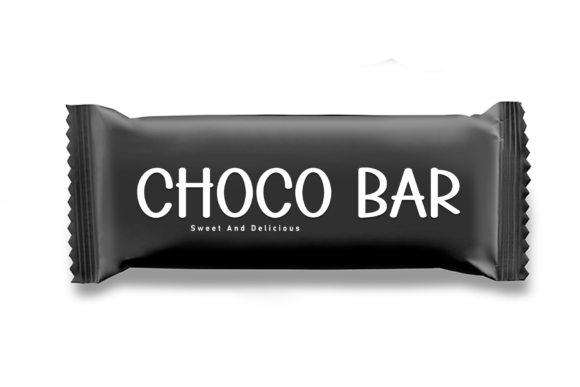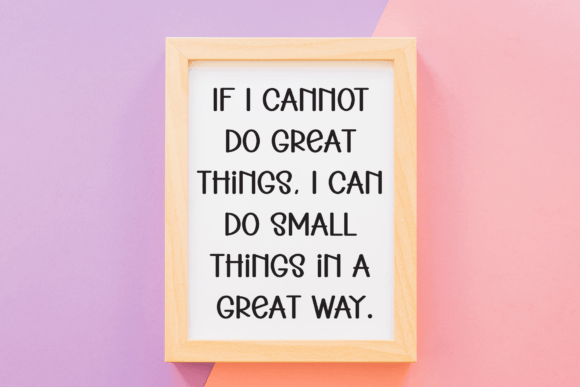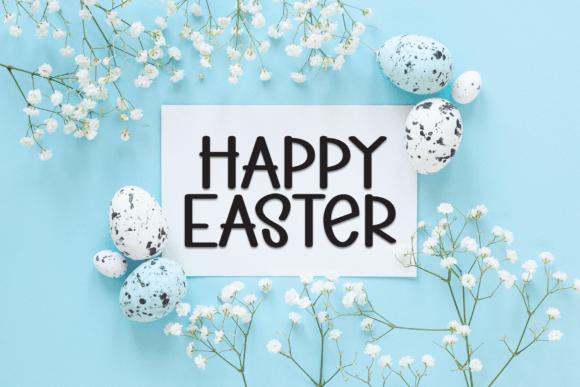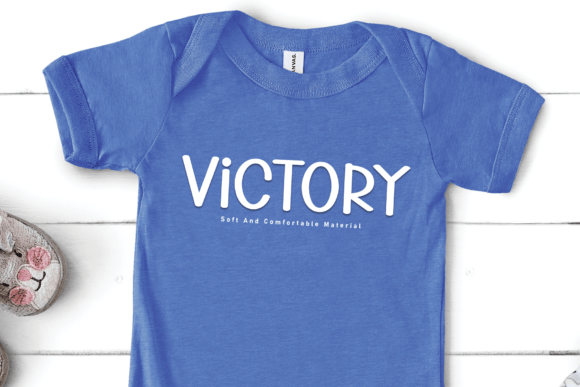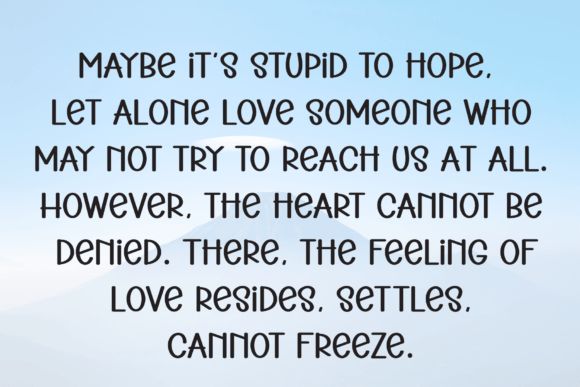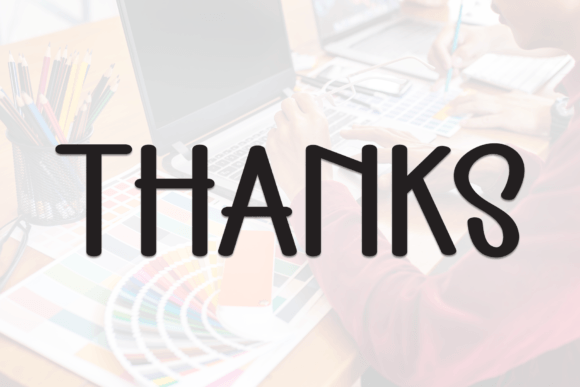
Introducing Design Graphic Font: Adding a Sweet and Friendly Touch to Your Designs
Are you looking for a font that can add a playful and charming touch to your designs? Look no further than Design Graphic Font! This beautiful handwritten font is perfect for creating wedding invitations, greeting cards, and other designs that require a friendly and approachable feel. In this article, we’ll take a closer look at Design Graphic Font, its features, and how you can use it to elevate your designs.
What is Design Graphic Font?
Design Graphic Font is a sweet and friendly handwritten font that’s perfect for designers and crafters who want to add a personal touch to their work. This font is carefully crafted to provide a warm and inviting feel, making it ideal for designs that require a touch of whimsy and playfulness. Whether you’re creating wedding invitations, birthday cards, or social media graphics, Design Graphic Font is sure to impress.
Key Features of Design Graphic Font
So, what makes Design Graphic Font so special? Here are some of its key features:
- Cute and Fun: Design Graphic Font is designed to be playful and fun, making it perfect for designs that require a lighthearted touch.
- Handwritten: This font is carefully handcrafted to provide a personal and unique feel.
- Versatile: Design Graphic Font can be used for a wide range of designs, from wedding invitations to social media graphics.
- Easy to Read: Despite its playful nature, Design Graphic Font is easy to read, making it perfect for body text and headings.
Use Cases for Design Graphic Font
Design Graphic Font is a versatile font that can be used for a wide range of designs. Here are some use cases to get you started:
- Wedding Invitations: Add a touch of romance and whimsy to your wedding invitations with Design Graphic Font.
- Greeting Cards: Create beautiful and personalized greeting cards for birthdays, holidays, and special occasions.
- Social Media Graphics: Use Design Graphic Font to create engaging and playful social media graphics that will capture your audience’s attention.
- Logos and Branding: Design Graphic Font can also be used for logos and branding, especially for businesses that want to convey a friendly and approachable image.
Tips for Using Design Graphic Font
Here are some tips for using Design Graphic Font effectively:
- Pair it with Other Fonts: Design Graphic Font pairs well with other fonts, especially sans-serif fonts. Experiment with different font combinations to create a unique look.
- Use it for Headings and Body Text: Design Graphic Font is easy to read, making it perfect for both headings and body text.
- Experiment with Colors: Design Graphic Font looks great in a variety of colors. Experiment with different colors to find the perfect look for your design.
Design Graphic Font is a beautiful and versatile handwritten font that’s perfect for designers and crafters who want to add a sweet and friendly touch to their designs. With its cute and fun design, versatility, and ease of use, Design Graphic Font is sure to become a favorite in your font collection. Whether you’re creating wedding invitations, greeting cards, or social media graphics, Design Graphic Font is the perfect choice.